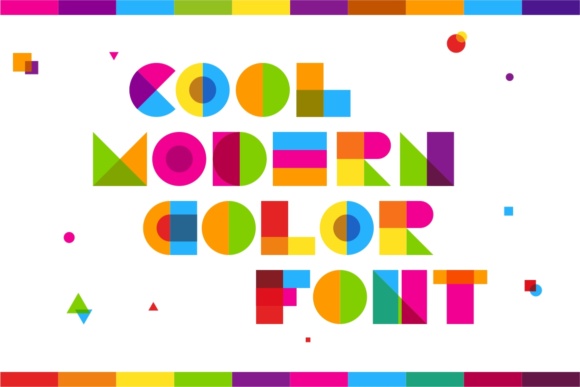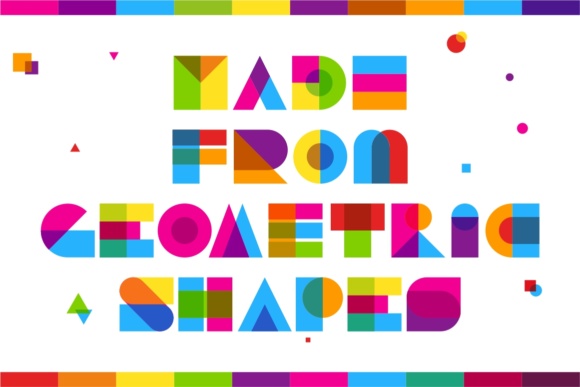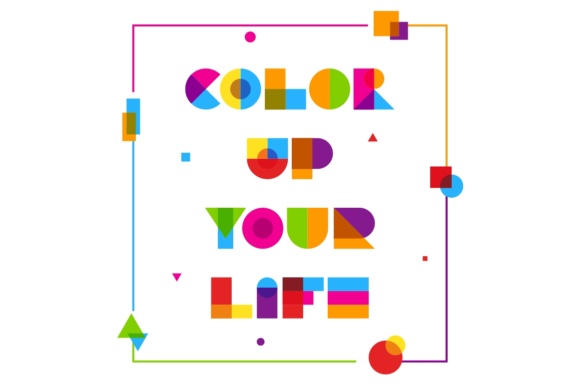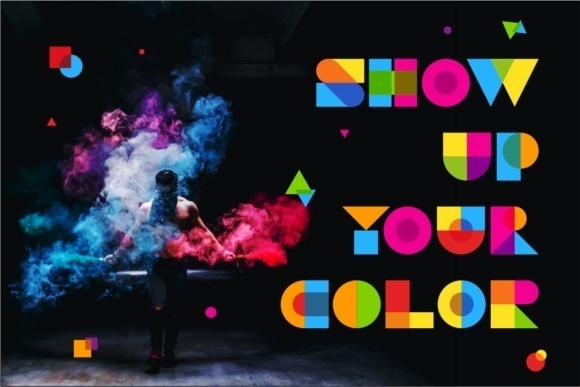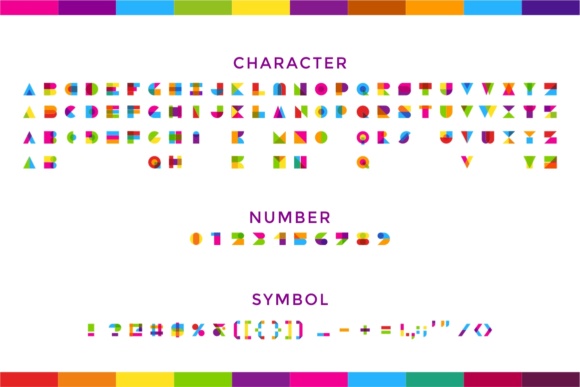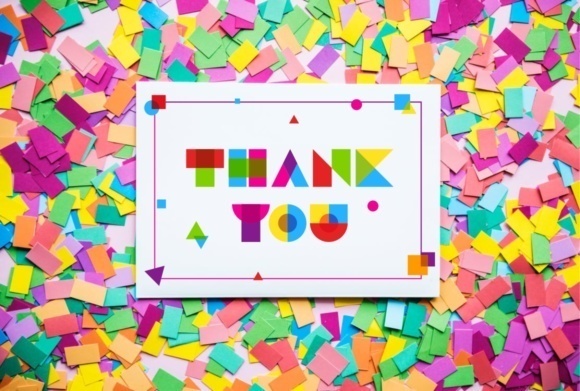
Garis Lengkung Font
About Garis Lengkung Font
The Garis Lengkung is indeed a vibrant and colorful typeface that is created using basic geometric shapes like circles, squares, triangles, semicircles, and more. Its unique design and color overlay give it a modern and cool aesthetic, making it a great choice for a wide range of design projects.
With its playful and whimsical style, The Garis Lengkung can add a touch of creativity and liveliness to your designs. Whether you’re working on a poster, packaging, branding, or any other design that requires an eye-catching and distinctive typeface, The Garis Lengkung can bring a unique charm to your project.
The use of basic geometric shapes in this typeface gives it a clean and structured appearance. Each character is carefully crafted using these shapes, resulting in a cohesive and visually appealing design. The color overlay further enhances its visual impact, allowing you to create vibrant and attention-grabbing typography.
When using The Garis Lengkung, consider the context and purpose of your design. Its colorful and playful nature makes it well-suited for projects that aim to convey a sense of fun, youthfulness, or creativity. However, it may not be the best choice for more formal or professional designs that require a more conservative typeface.
Experiment with different color combinations and sizes to make the most of The Garis Lengkung’s visual impact. Its versatility allows you to create dynamic and engaging designs that stand out from the crowd. Additionally, consider pairing it with complementary typefaces or graphic elements to create a cohesive and balanced composition.
It’s important to note that The Garis Lengkung is primarily a display typeface, meaning it works best for titles, headlines, or larger text elements rather than body text. This allows its unique design and colors to shine and make a strong visual statement.
In summary, The Garis Lengkung is a colorful and playful typeface that can bring a modern and cool vibe to your designs. With its use of basic geometric shapes and color overlay, it offers a unique and eye-catching visual style. Consider using it for projects that require a touch of creativity, liveliness, or uniqueness. Enjoy exploring the possibilities and let your imagination run wild!